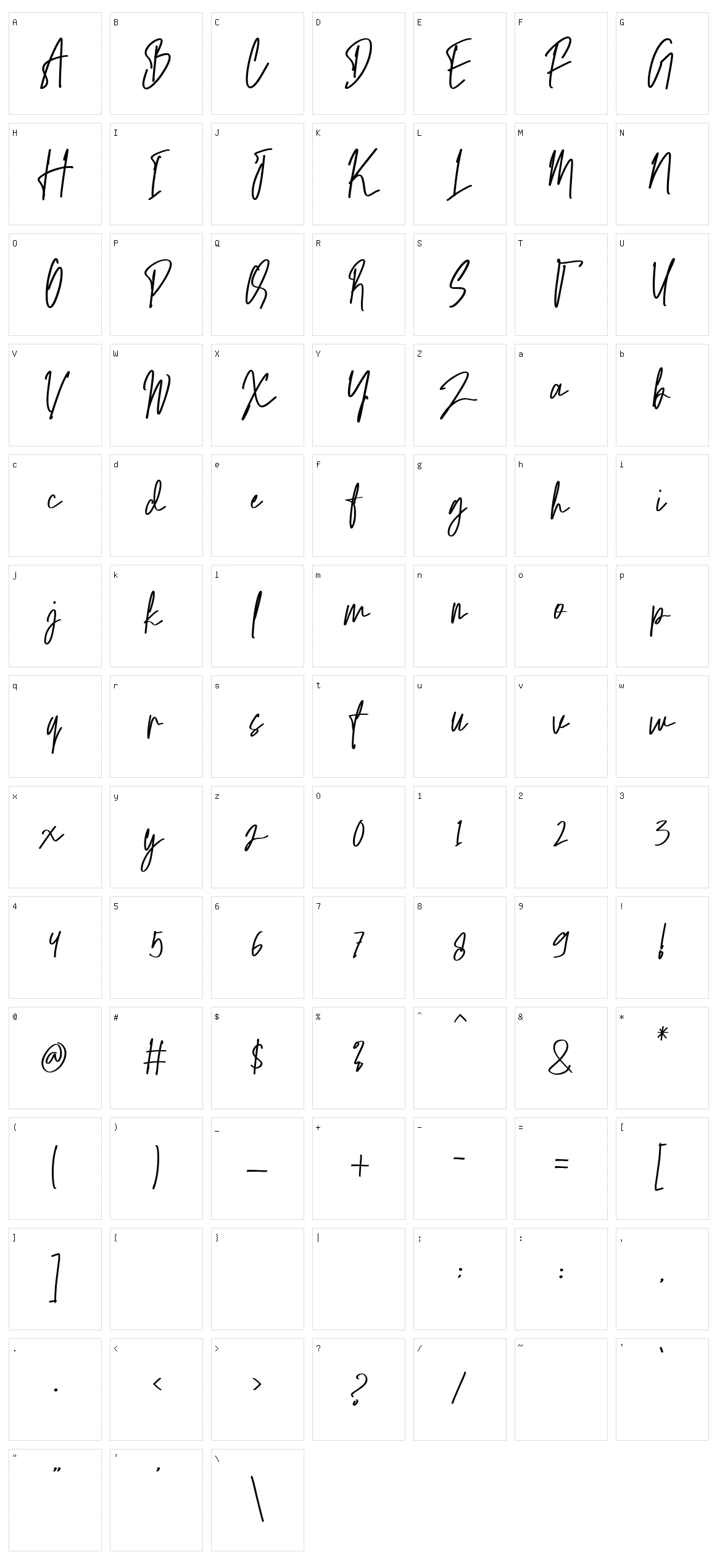
The free font Scathing is carefully designed by Scathing Signature, showcasing a thoughtful balance of creativity and usability and falls under the Script font style. When you download the ZIP file, it contains only 16.81 KB of font files, making it lightweight and quick to download. Please review the license details below to understand permitted usage and distribution rights. If license information is not available, we recommend using this font for personal projects only or contacting the author directly for commercial usage permissions.